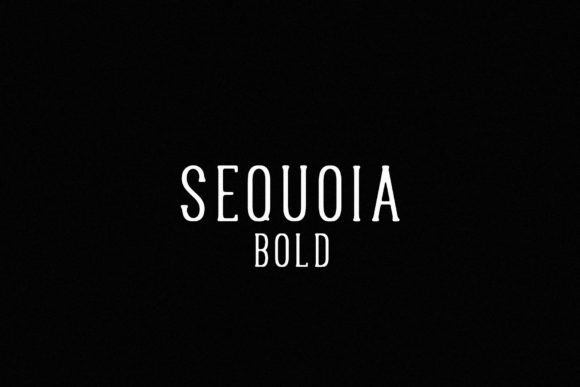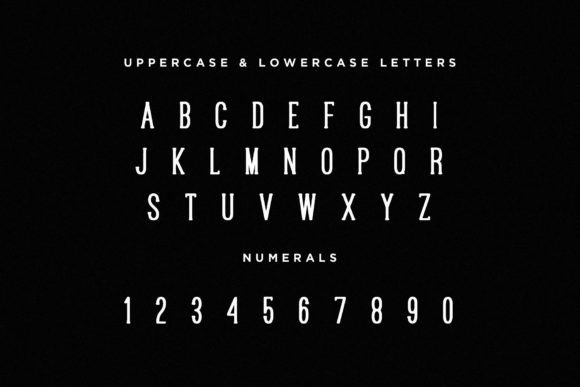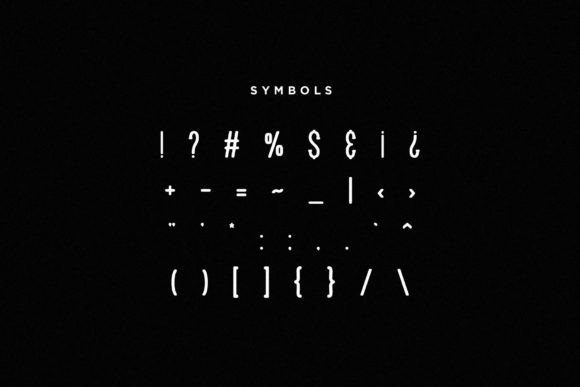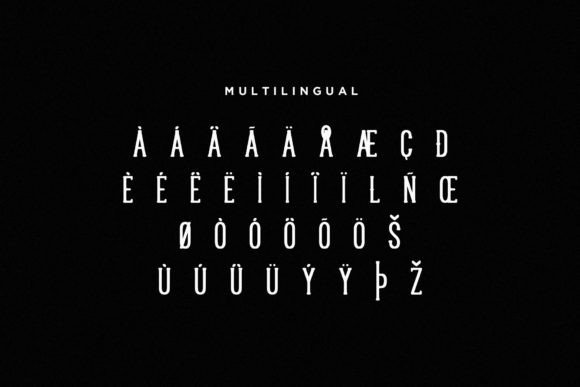
Sequoia Bold Font
About the Sequoia Bold Font
The wait is over! The incredible Sequoia Bold Font is now available for your design toolkit. Sequoia Bold is a simple hand-drawn serif font. Sequoia has smooth edges, a clean look, can be easily used for branding, logo design, posters, t-shirts, etc.
Sequoia Bold Font Usage Examples
Sequoia Bold Font Example